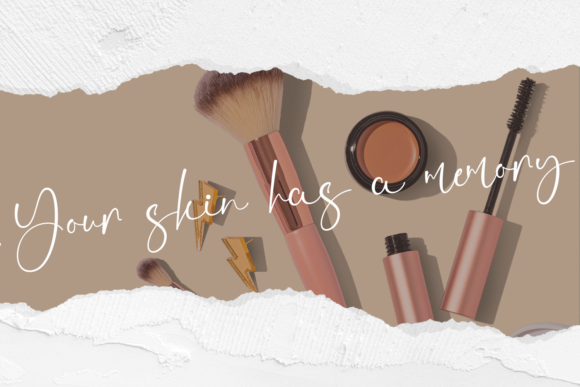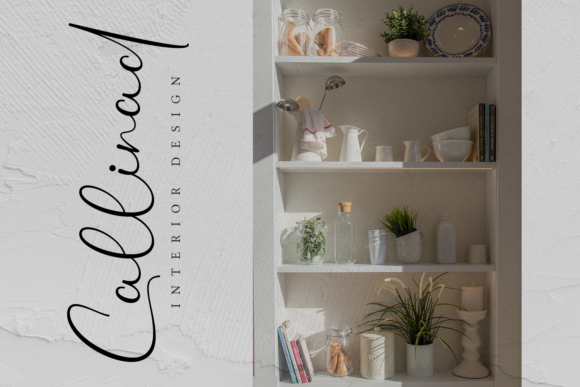
Sanilad Font
About Sanilad Font
Sanilad is a beautiful and charming script font that will impress you with its delicate characters. Versatile and almost poetic, this typeface is perfect for projects that need a personal touch.